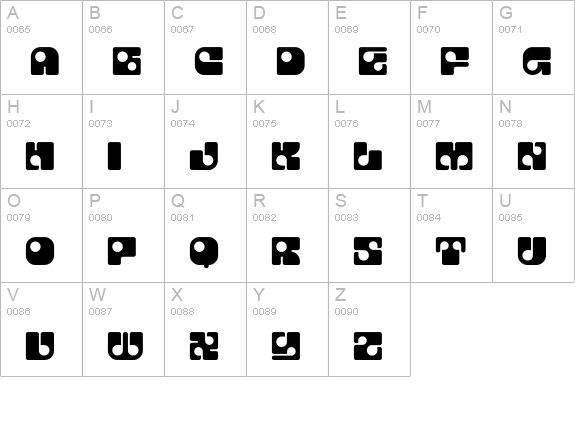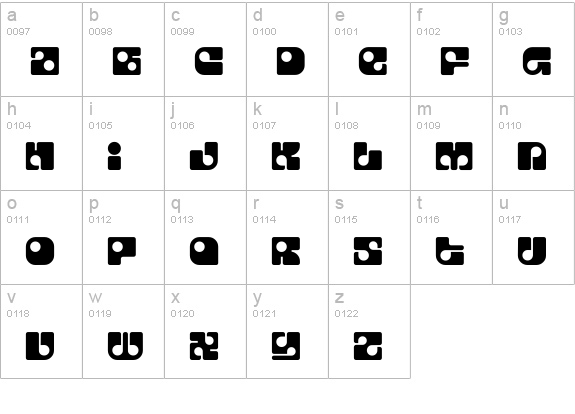
SkylabRegular Font Details
SkylabRegular font is a sleek and modern typeface that exudes sophistication and elegance. With its clean lines and versatile design, SkylabRegular is perfect for a wide range of design projects, from branding to editorial layouts. This timeless font strikes the perfect balance between professionalism and creativity, making it a go-to choice for designers looking to make a statement. What's even better is that SkylabRegular is available for free download at FontsMarket.com. Yes, you read that right - this high-quality font can be yours at no cost, allowing you to elevate your designs without breaking the bank. Don't miss out on this fantastic opportunity to add SkylabRegular to your font library and take your projects to the next level.